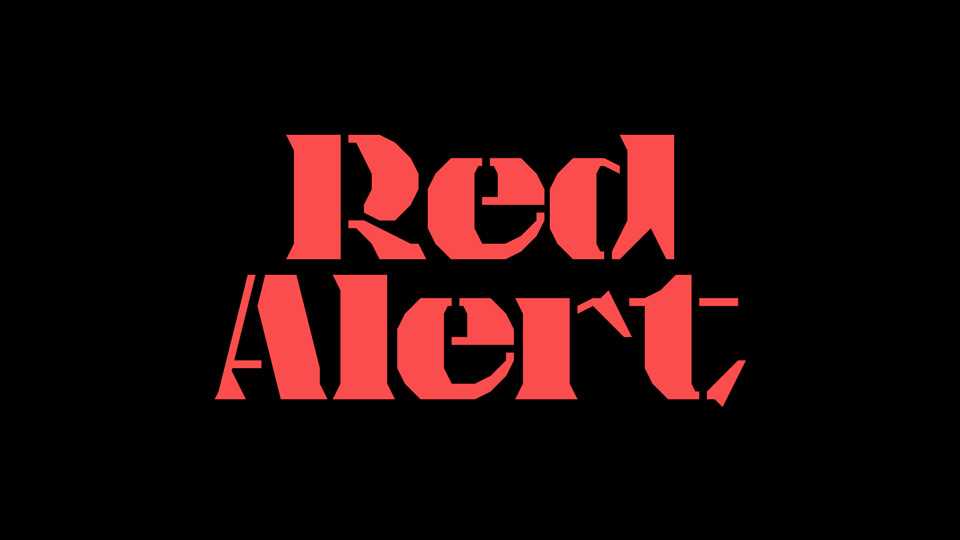
Download Red Alert font, a chunky stencil typeface with a bold and strong personality. It’s eye catching and impact look is perfect for display use, posters and headlines.